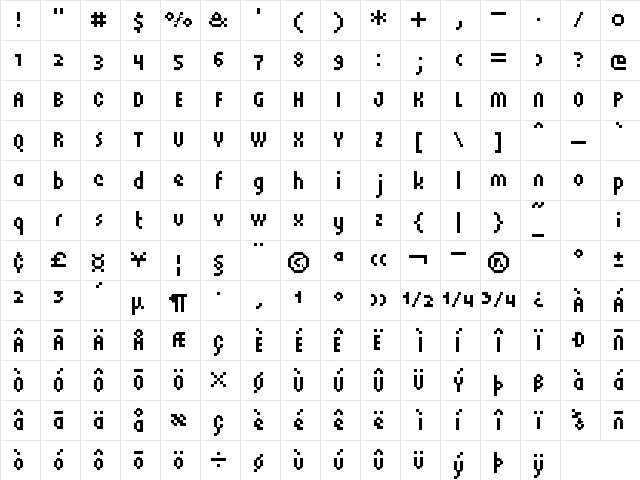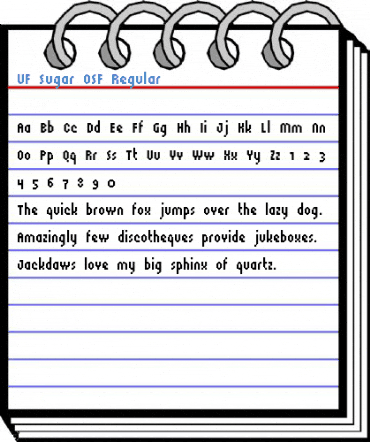
Complete UF Sugar OSF Regular glyph index. Displaying only characters natively supported by UF Sugar OSF Regular font.
UF Sugar OSF is a composed and adaptable typeface that performs quietly and consistently across a wide range of design contexts.